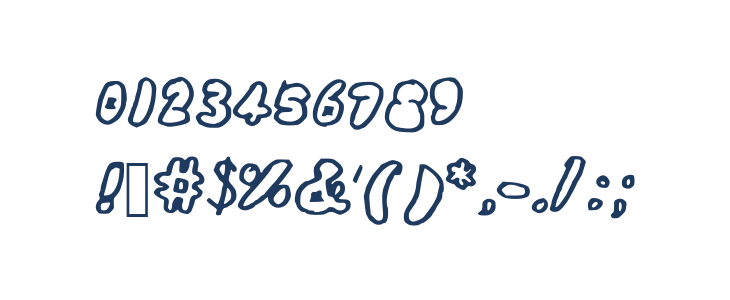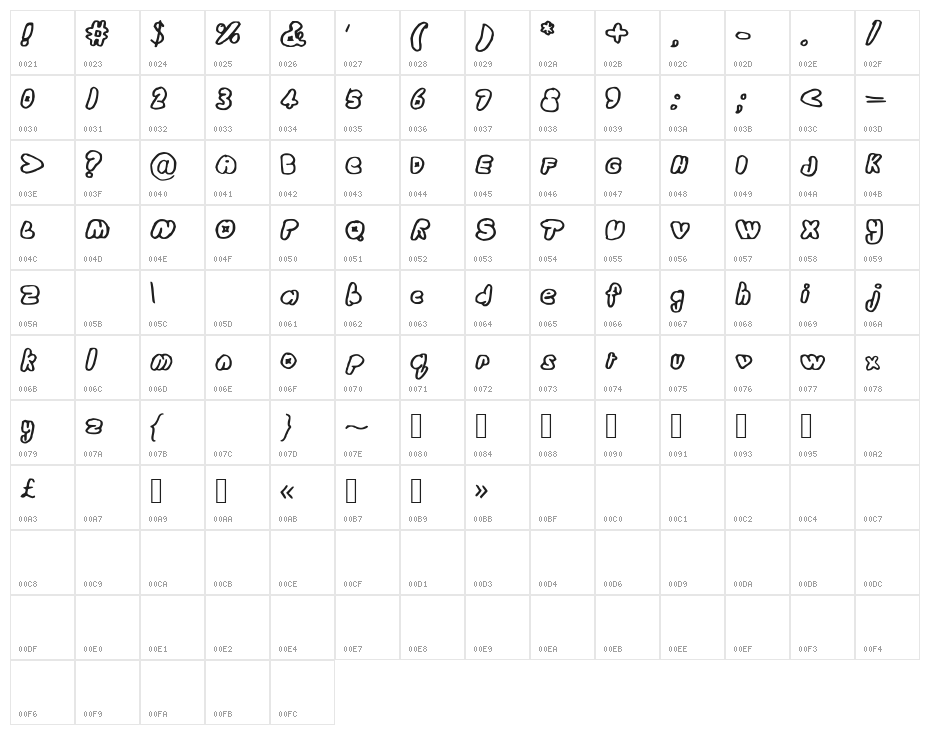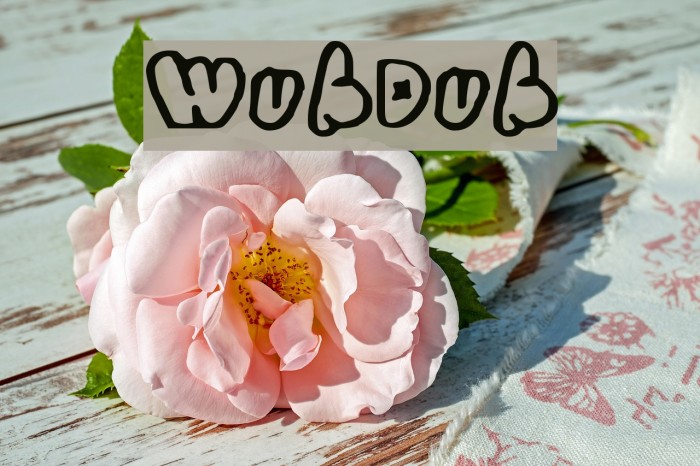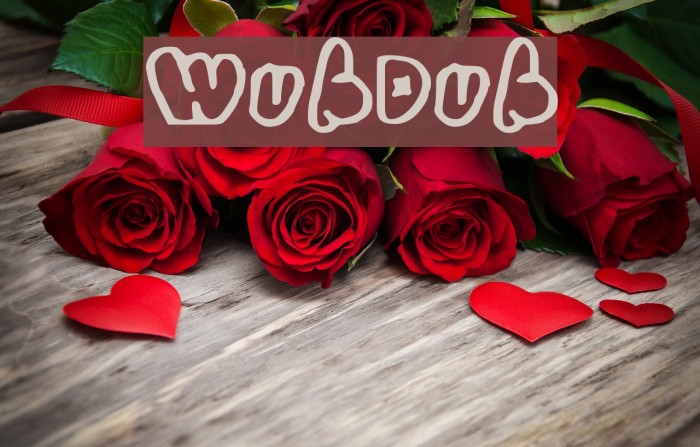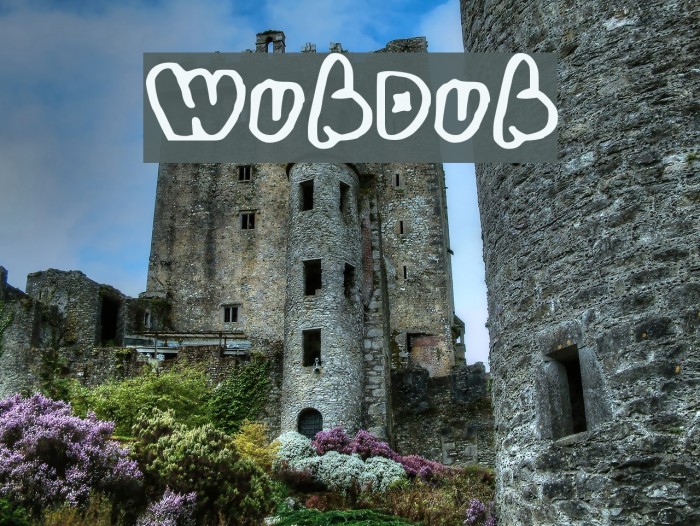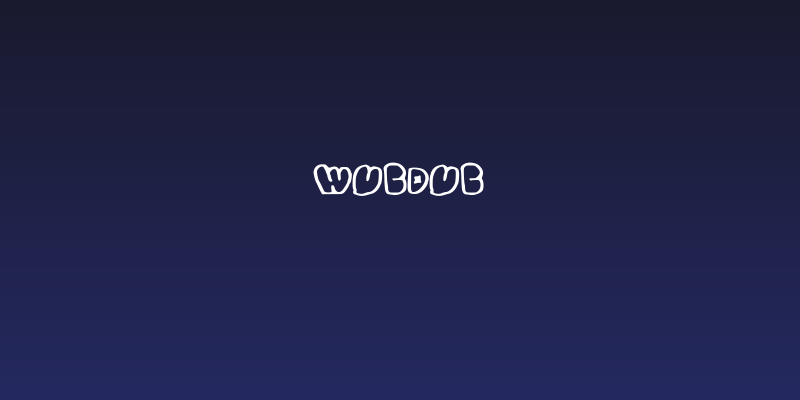
WubDub Font
WubDub Description
This playful and bold font features a unique, hand-drawn style with thick, rounded outlines that give it a cartoonish and whimsical appearance. Each character is distinct, with a bubbly and slightly irregular shape that adds to its charm. The uppercase and lowercase letters maintain a consistent style, while the numbers and special characters complement the overall design. This font's thick strokes and rounded edges make it highly legible, even at smaller sizes, while its quirky style ensures it stands out in any design.
| Overall Style | Whimsical |
| Proposed Projects | Ideal for children's books, comic strips, playful branding, and creative posters. |